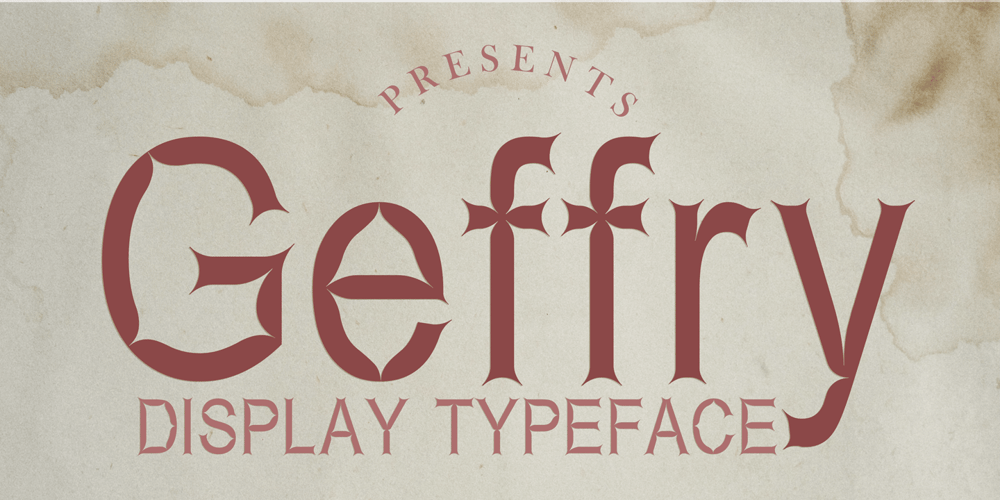
Geffry Font Family was designed by Reza Mukhtazar and published by Rezastudio. Geffry contains 1 styles and family package options. Geffry is a retro inspired display typeface. It’s fun and groovy with a bold personality. Perfect for masthead, logo, or anything your creativity takes you.